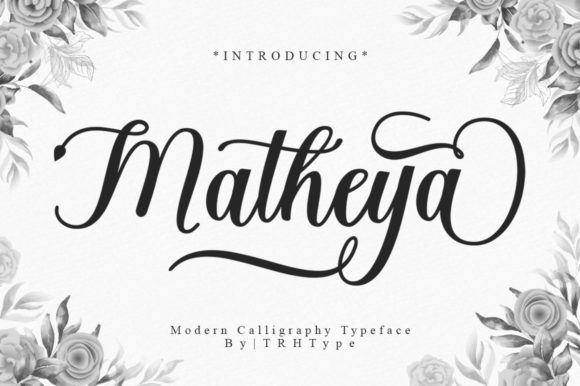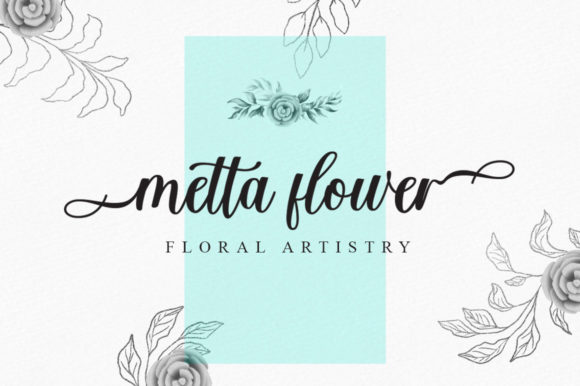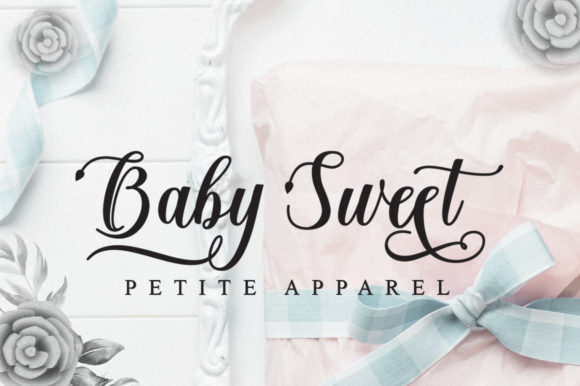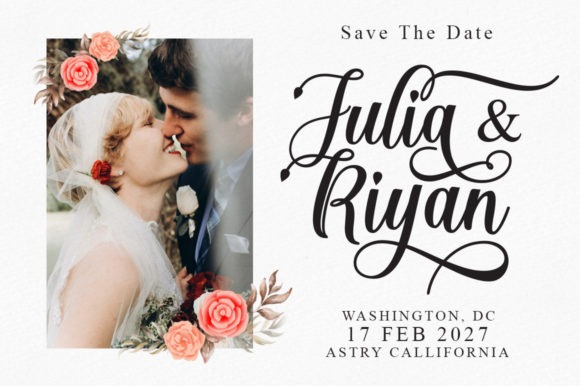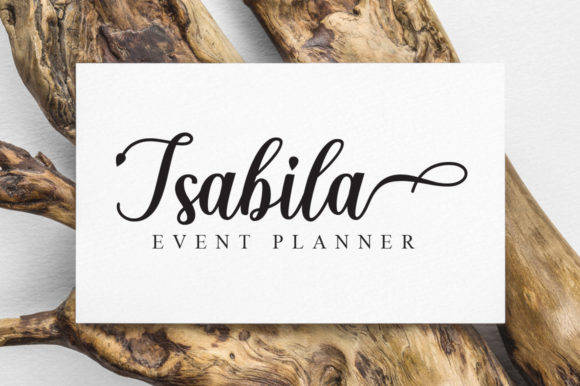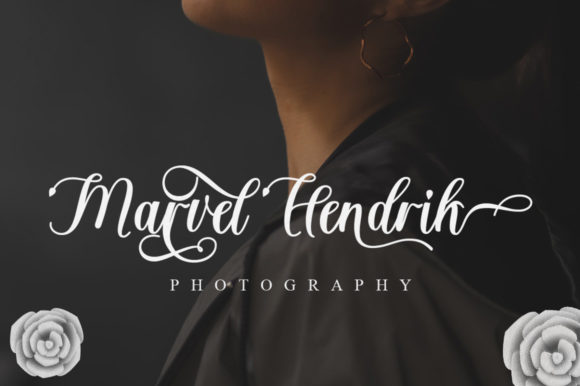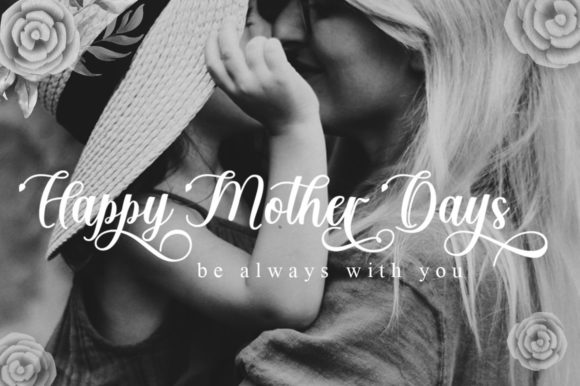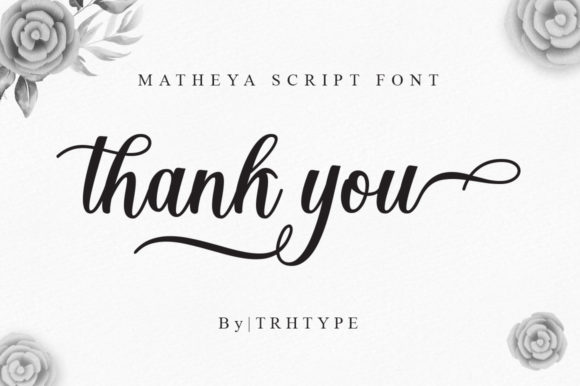
Matheya Font
Matheya is a well-balanced and stylish script font that exudes a sense of neatness and vibrancy. It’s designed to work incredibly well on a variety of design ideas, making it a versatile addition to any font library. Let’s revise this text into a SEO-friendly 400-word version:
Matheya is a well-balanced and stylish script font that stands out with its neat and vibrant design. Crafted with meticulous attention to detail, Matheya is designed to deliver the expected outcomes, making it a valuable addition to any font library. Whether you’re working on a branding project, designing a logo, or creating a website, Matheya can add a touch of elegance and modernity to your creations.
One of the key features of Matheya is its well-balanced design. Unlike traditional fonts, Matheya is designed with a unique script style that gives it a unique character. This balanced design not only makes Matheya stand out but also adds a personal touch to your designs, making them more engaging and appealing to the audience.
Matheya is more than just a stylish script font. It’s a versatile design tool that can enhance the aesthetic appeal of your projects. Its neat and vibrant look makes it suitable for a wide range of applications, from logos and branding to invitations, stationery, wedding designs, and more. The versatility of Matheya makes it a valuable addition to any designer’s toolkit.
In addition to its aesthetic appeal, Matheya also offers practical benefits. Its clear and legible design makes it suitable for both print and digital mediums. Whether you’re designing a business card or creating a website, Matheya ensures that your text is always easy to read and understand.
Matheya is not just a font; it’s a design asset. Its potential to enhance any creation makes it a valuable addition to any designer’s toolkit. With Matheya, you can add a touch of elegance and sophistication to your designs, making them more appealing and engaging.
In conclusion, Matheya is a well-balanced and stylish script font that can enhance the beauty of any design. Its neat and vibrant look, combined with its versatility and high readability, makes it a valuable addition to any font library. Whether you’re a professional designer or a hobbyist, Matheya is a font that can help you create stunning and memorable designs. So, if you’re looking for a font that can add a personal touch to your designs, look no further than Matheya.